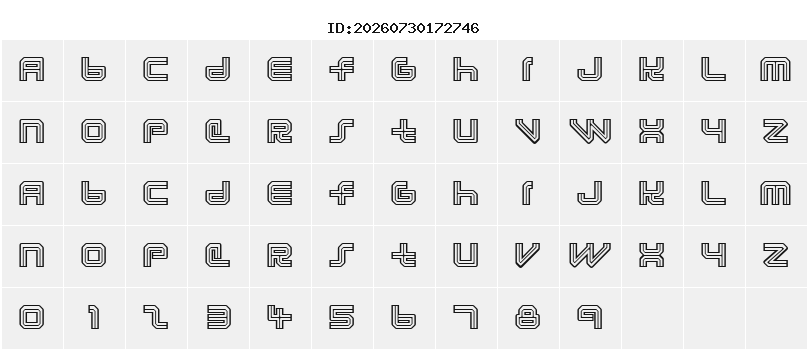
• Font Name: Lunasol Aurora
• Designer: Ray Larabie
Lunasol Aurora.ttf is a modern, elegant sans-serif font designed for ultimate readability and visual harmony. Perfect for branding, headlines, web design, and print materials.